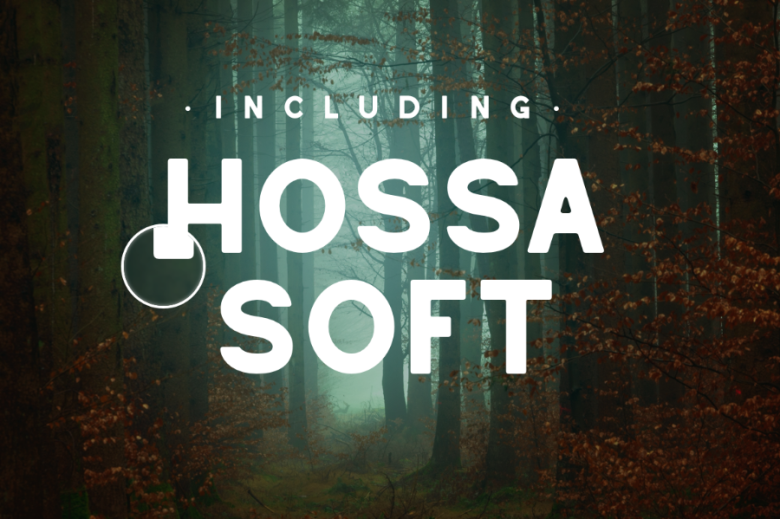
Hossa Font Family
Introducing Hossa Font Family! Hossa designed and shared by Quill Type Co. Hossa is a family of SIXTEEN Sans Serif fonts, providing a contemporary twist on a retro look, inspired Hossa works great on its own, providing a perfect font for logos, headlines, or titles. It also works perfectly as a secondary font to your existing logos and branding.